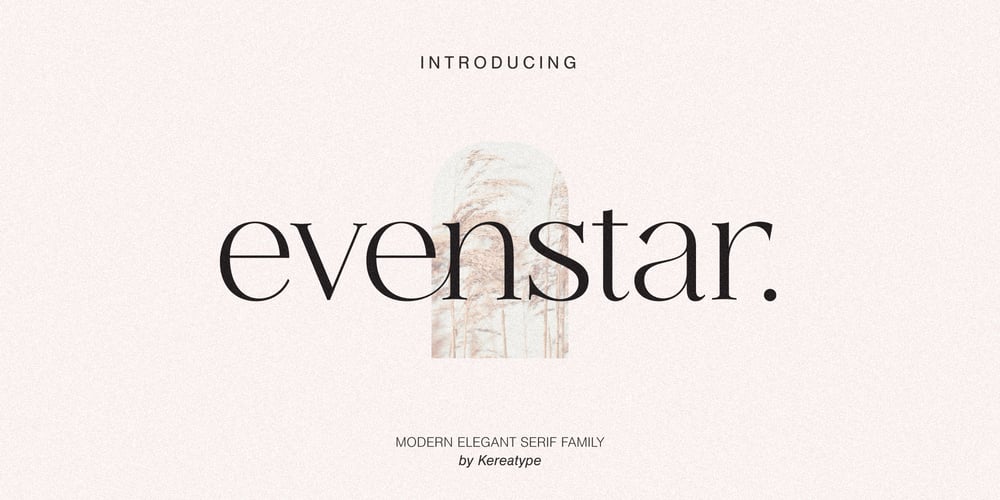
Evenstar Font Family was designed by Amal Yusuf and published by Kereatype. Evenstar contains 9 styles and family package options. Introducing the new ‘Evenstar’ Serif Family font with 9 Weight is a fashionable and modern elegant serif font with some sexy stylish extras:).Based on our experience as a graphic designer who works for a lot of companies, we often are requested to design a logo in a unique style but with an elegant shape. So, we try to brainstorm and create this font to make the idea is going out.This is perfect for BRANDING and LOGO DESIGN. You will get classy, elegant, and certainly unique logos with this font.